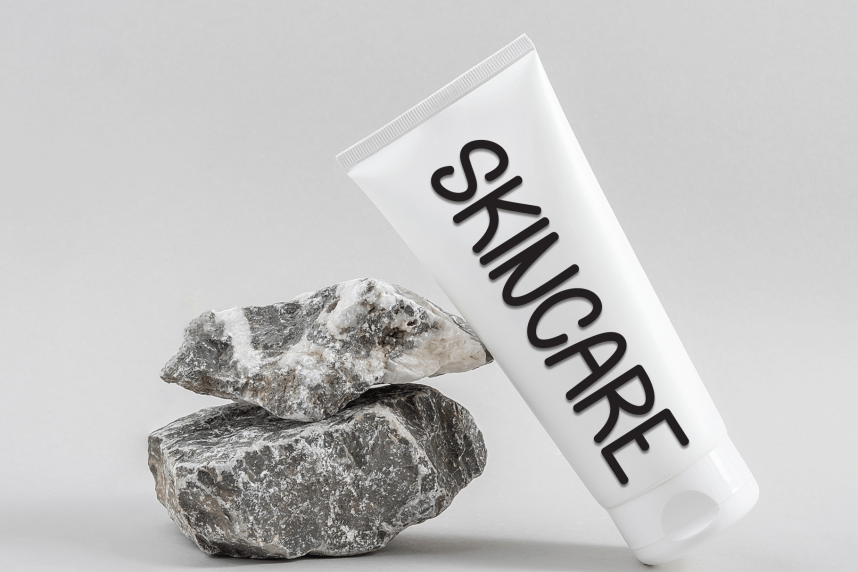
Wonder Grandma Handmade Font
Wonder Grandma Handmade Font is a sweet and friendly handwritten display font. Cute and fun, this font is ideal for writing wedding invitations, cards, or any other design that might need a playful touch!